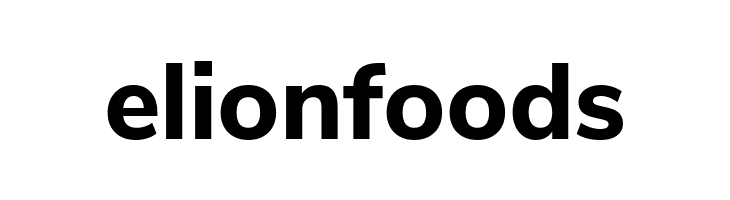
Nunito Black Font
A modern, rounded, and bold font with smooth edges and high legibility.
Nunito ExtraBold Font
A modern, rounded sans-serif font with a friendly and approachable style.
Nunito Light Font
A modern, rounded sans-serif font with a clean and elegant appearance.
Nunito Bold Font
A modern, bold sans-serif font with rounded terminals and excellent readability.
Nunito Sans ExtraBold Font
A modern sans-serif font with bold, clean lines and excellent readability.
Nunito Regular Font
A modern, rounded sans-serif font with clean lines and balanced spacing.
Nunito SemiBold Font
A modern, rounded sans-serif font with clean, balanced letterforms and smooth curves.
Nunito Sans Bold Font
A modern sans-serif font with rounded terminals and balanced proportions.
Nunito Sans Black Font
A bold, modern sans-serif font with clean lines and rounded edges.
Nunito Black Italic Font
A bold, italic, modern sans-serif font with rounded, smooth letterforms.
Nunito Sans Regular Font
A clean, modern sans-serif font with rounded terminals and uniform stroke width.
Nunito ExtraLight Font
A modern, clean sans-serif font with uniform stroke width and excellent readability.
Nunito Sans SemiBold Font
A modern, semi-bold sans-serif font with a clean and approachable design.
Nunito Sans ExtraLight Font
A clean, modern sans-serif font with a light weight and balanced structure.
Nunito Italic Font
A modern, italic sans-serif font with smooth curves and rounded terminals.
Nunito ExtraBold Italic Font
A modern, rounded, extra bold italic font with medium contrast and smooth style.
Nunito SemiBold Italic Font
A modern, semi-bold italic sans-serif font with smooth curves and low contrast.